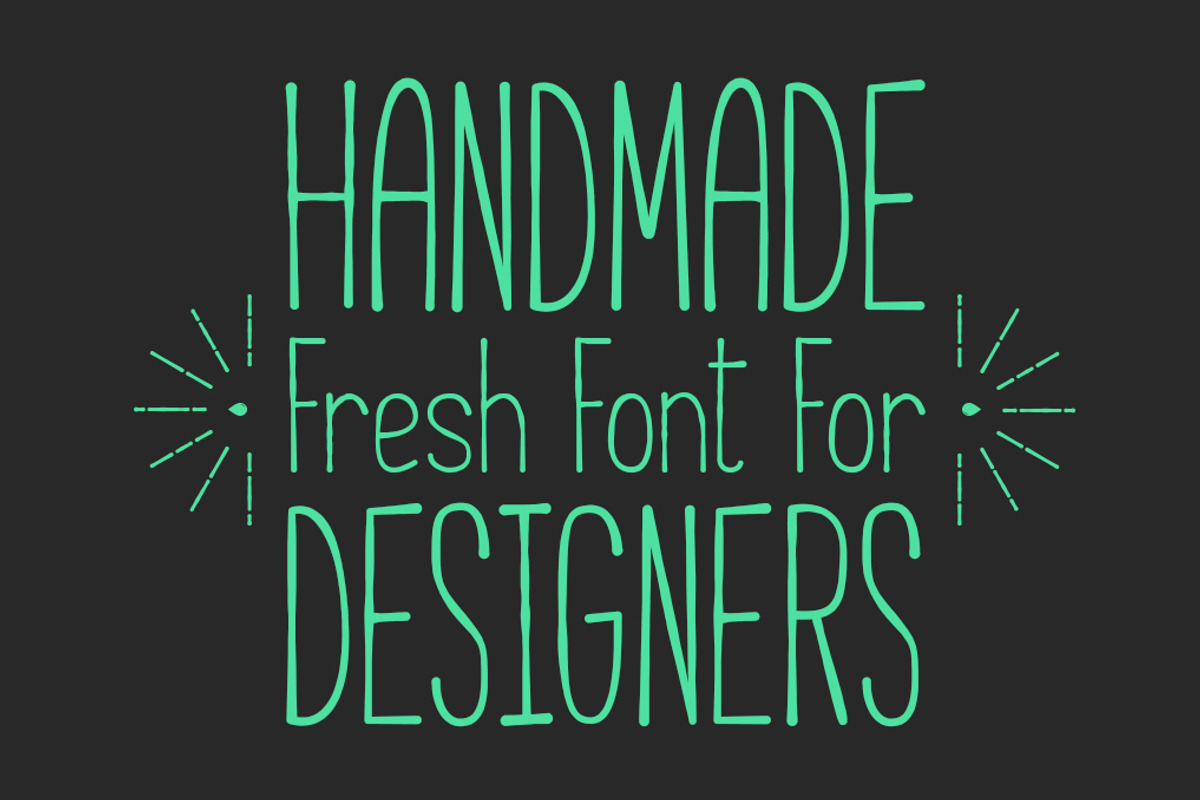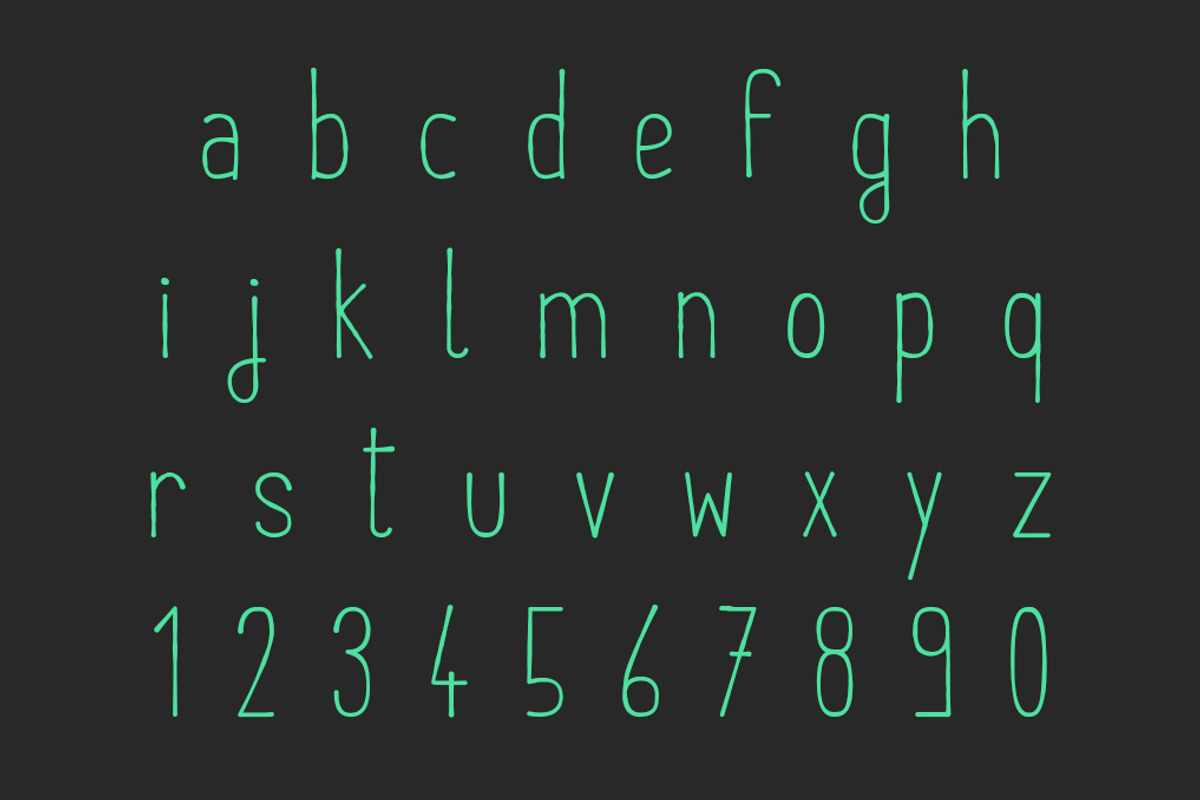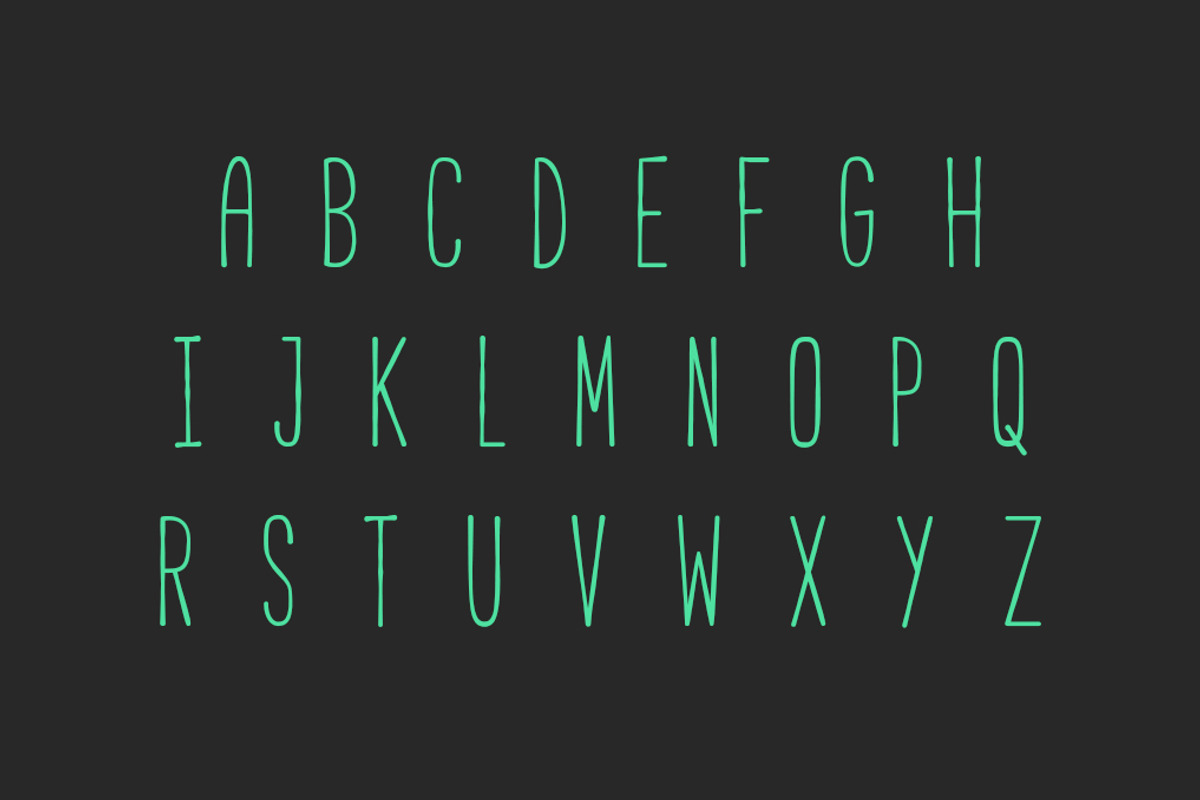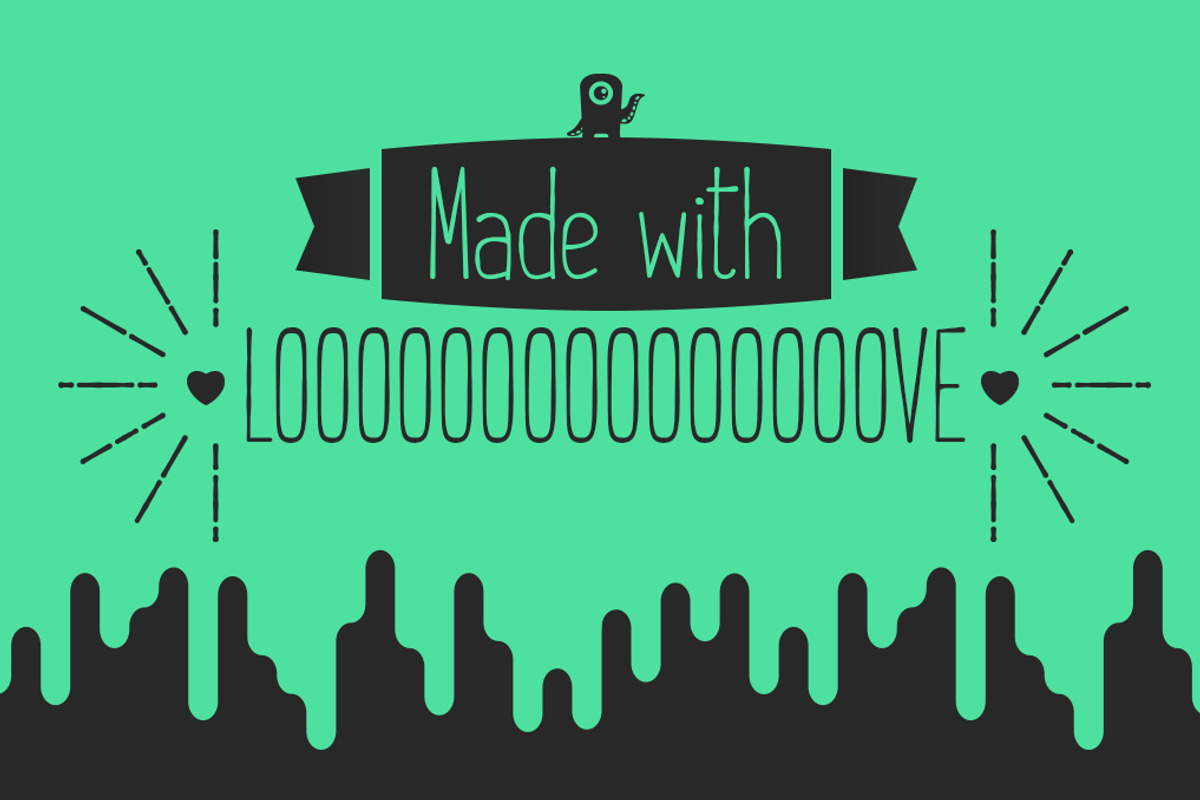
Cabana - Handmade Font
Cabana - Handmade Font by AdrienCoquet is a font selected for branding, posters, packaging, typography.
Why Cabana - Handmade Font is worth a look
Cabana - Handmade Font by AdrienCoquet fits naturally into Branding, posters, packaging, typography.